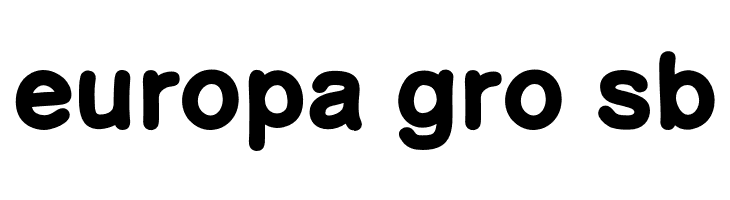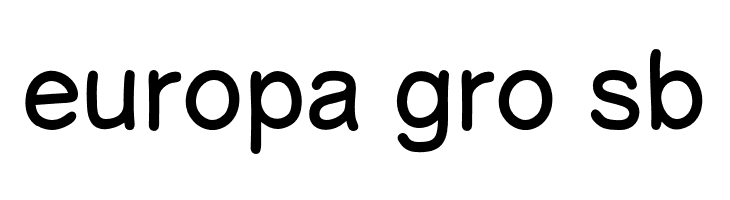
( Fonts by Alexander Pravdin )
A bold, rounded font with a playful and friendly style.
( Fonts by Alexander Pravdin )
A playful, handwritten-style font with rounded edges and consistent stroke width.
( Fonts by Alexander Pravdin )
A playful, rounded sans-serif font with bold, smooth curves.